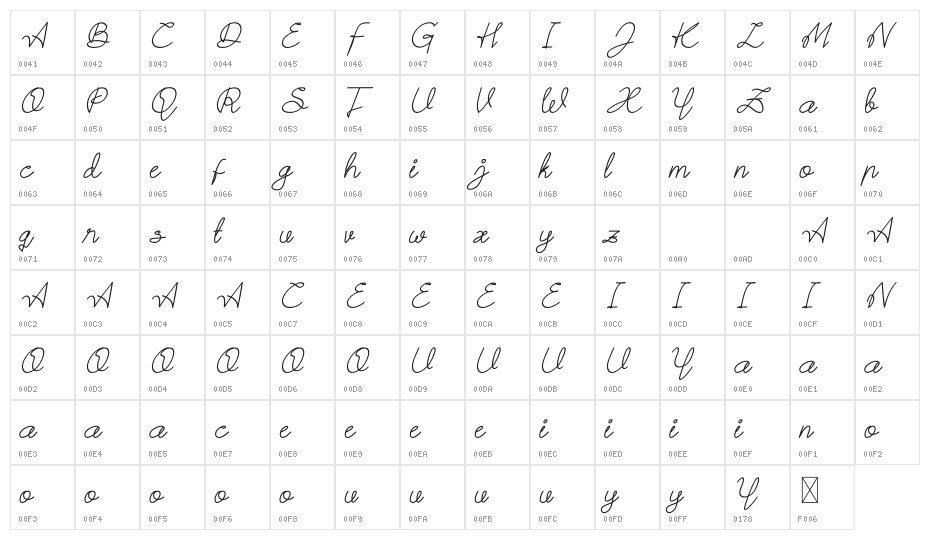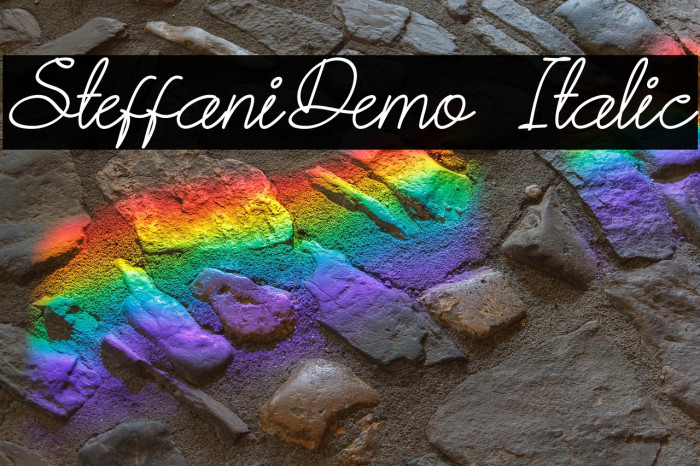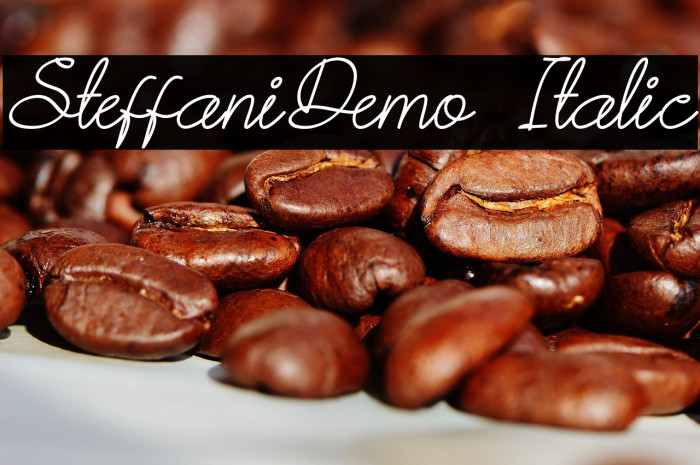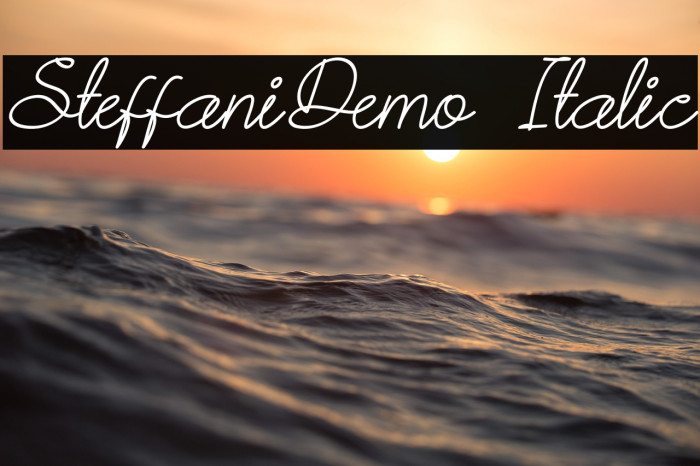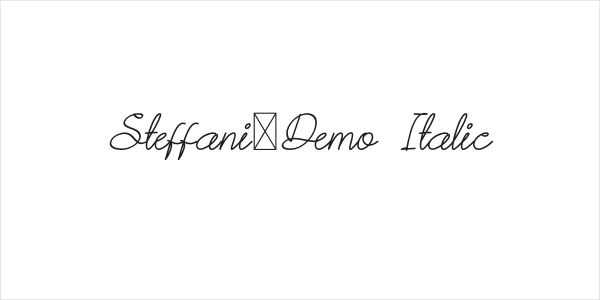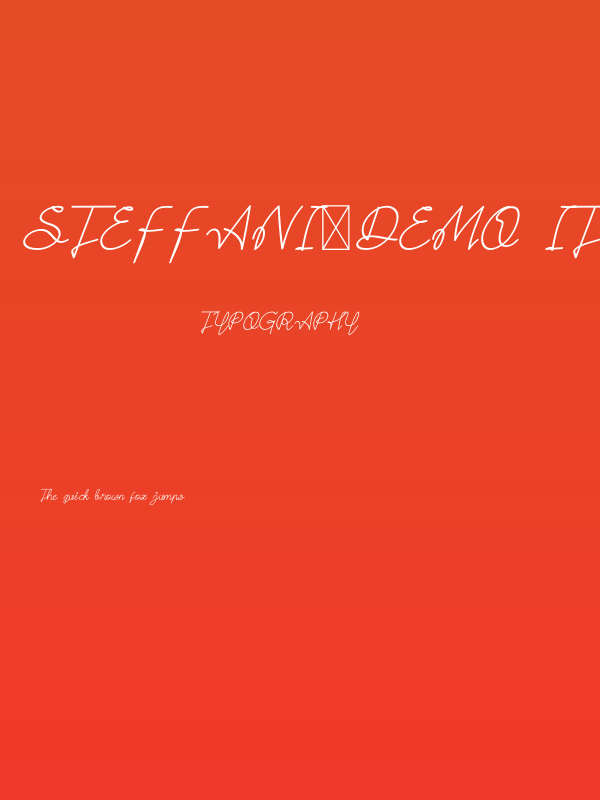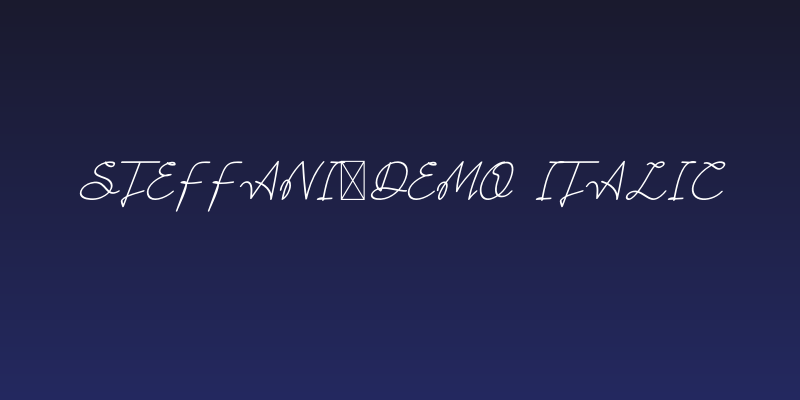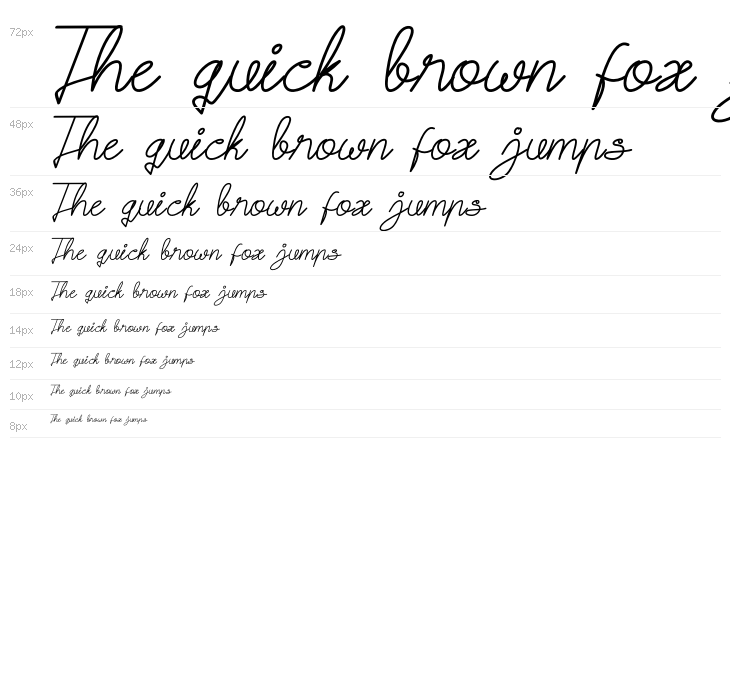
Steffani-Demo Italic Font
Steffani-Demo Italic Description
This font features a flowing, cursive style that exudes elegance and sophistication. The characters are connected, creating a seamless and fluid appearance. The strokes are smooth and consistent, with a slight slant that adds to the italicized effect. The uppercase letters are tall and graceful, while the lowercase letters maintain a balanced and harmonious look. The overall design is reminiscent of traditional calligraphy, making it suitable for formal and decorative purposes. The font's intricate details and stylish flair make it ideal for projects that require a touch of class and refinement.